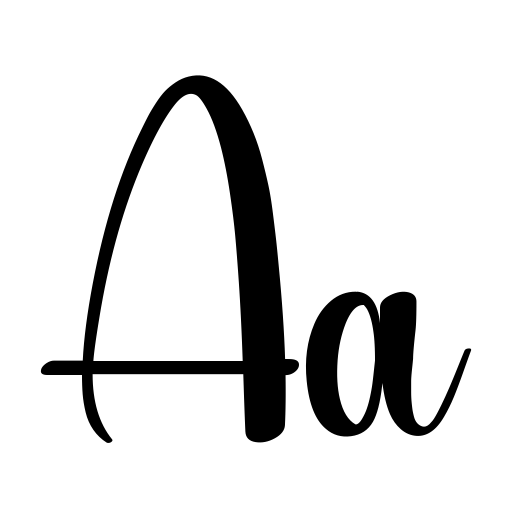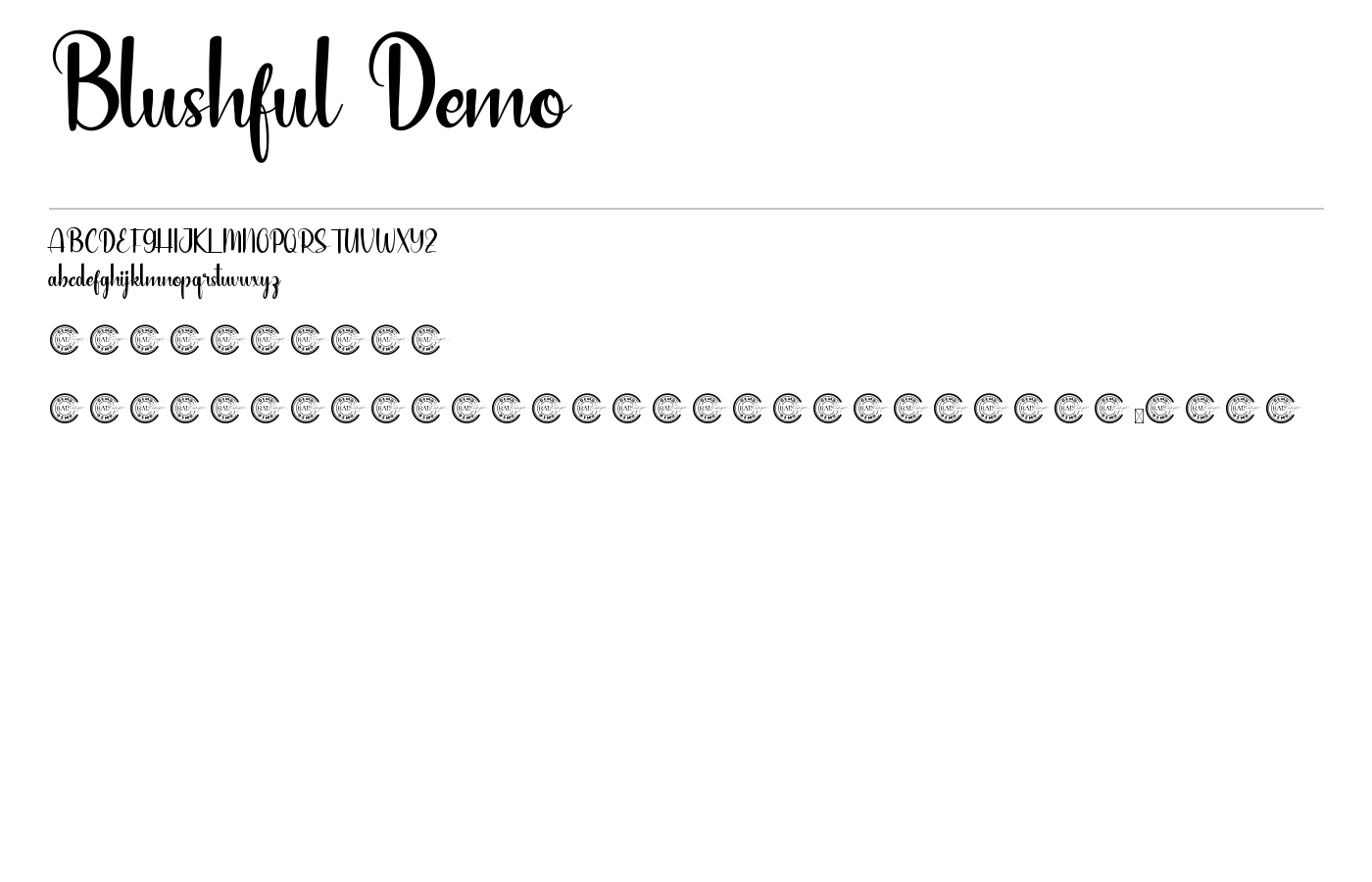
Blushful Demo is a charming script font with a playful, handwritten feel, characterized by its tall, narrow letters and smooth, rounded strokes. It lends an elegant yet approachable personality, making it perfect for feminine branding, invitations, and casual creative projects where a warm, personal touch is desired. This font works well in headlines and logos, adding a friendly and stylish flair to design compositions.
Blushful Demo Font
About Blushful Demo Font